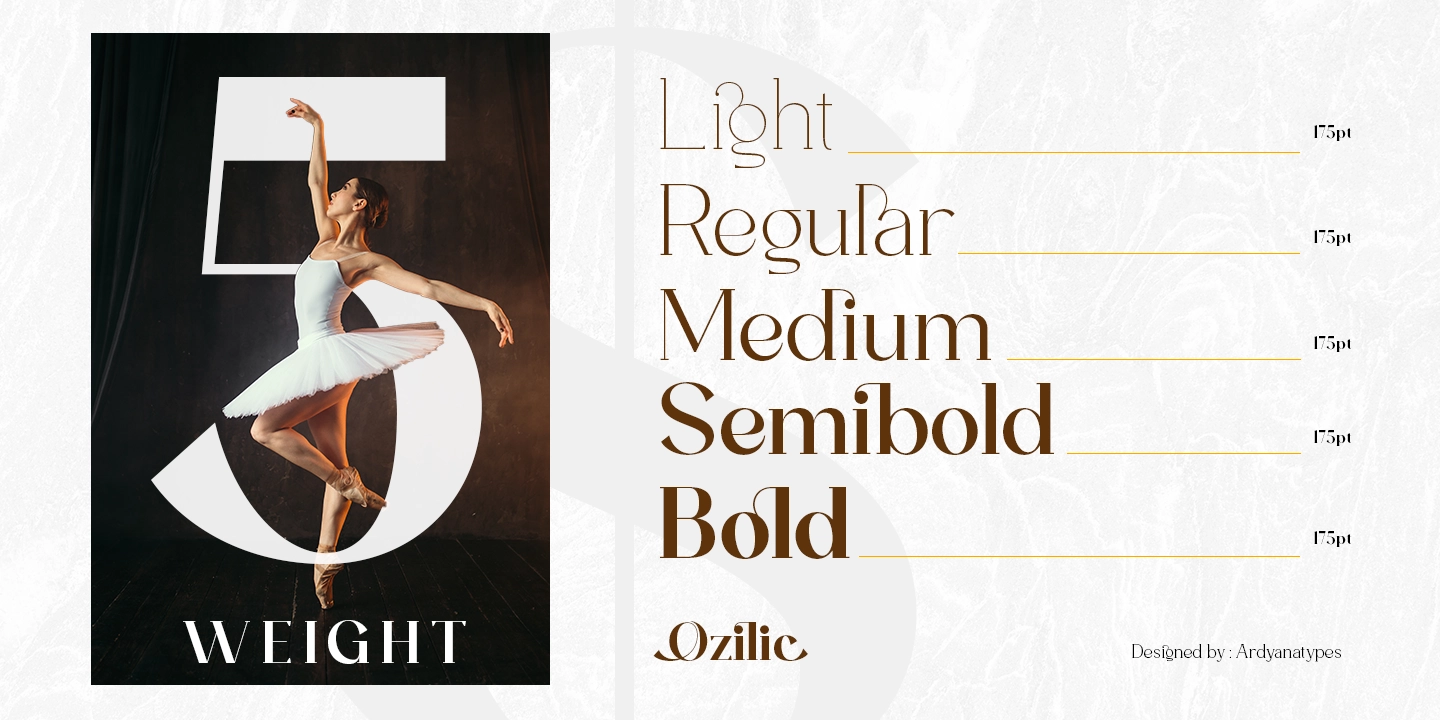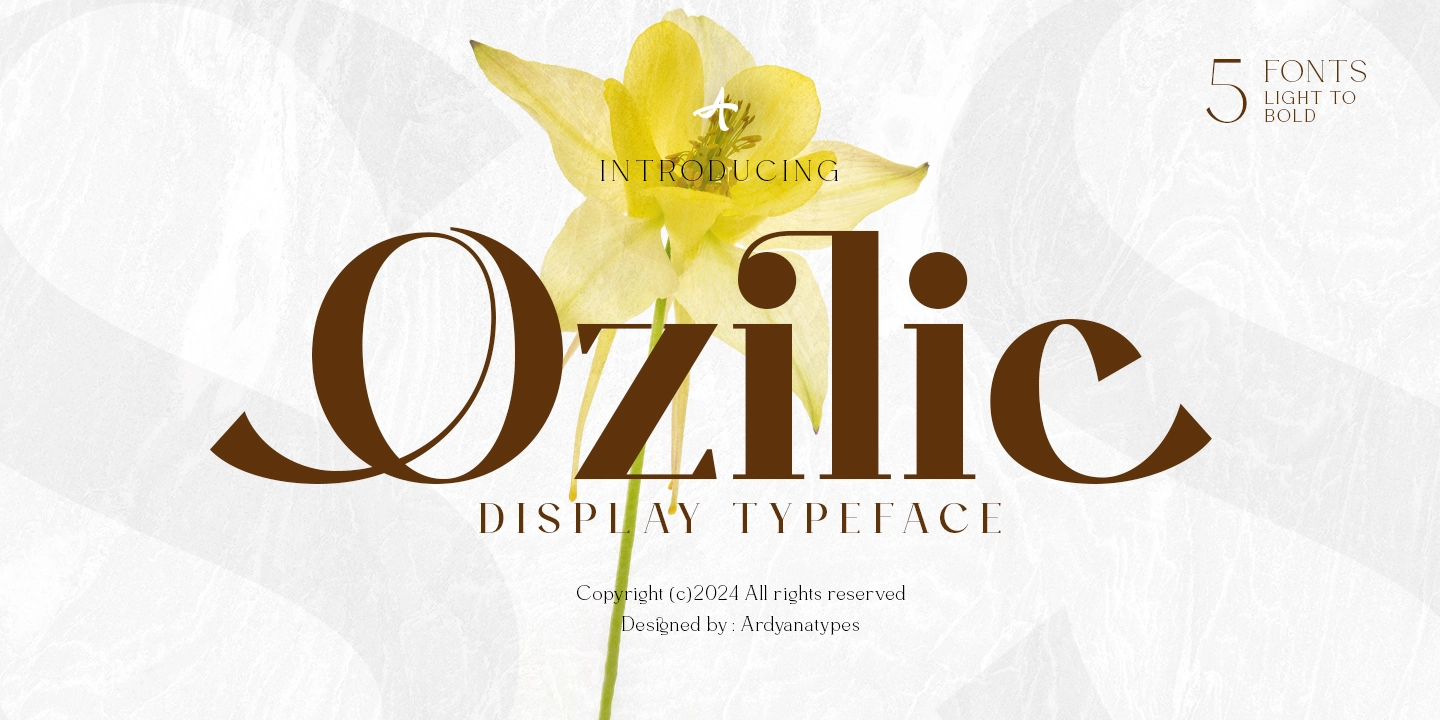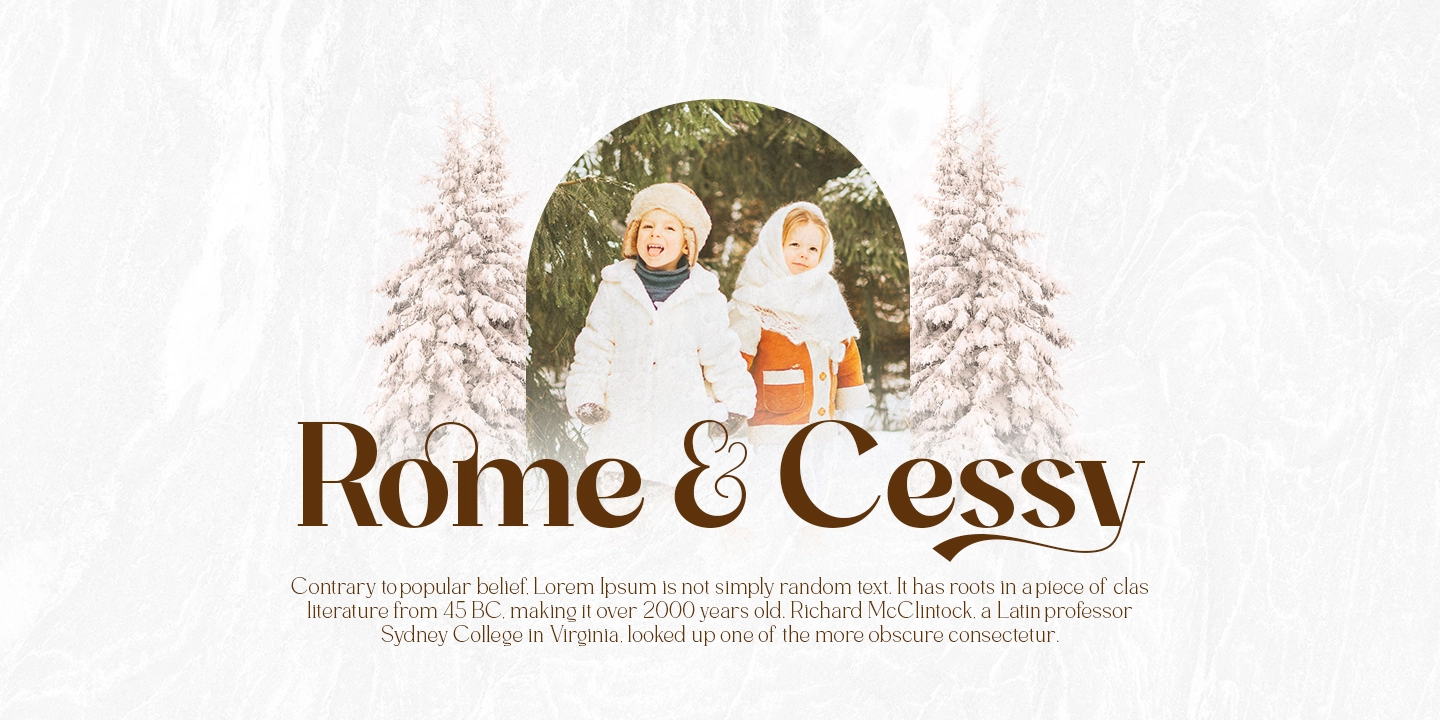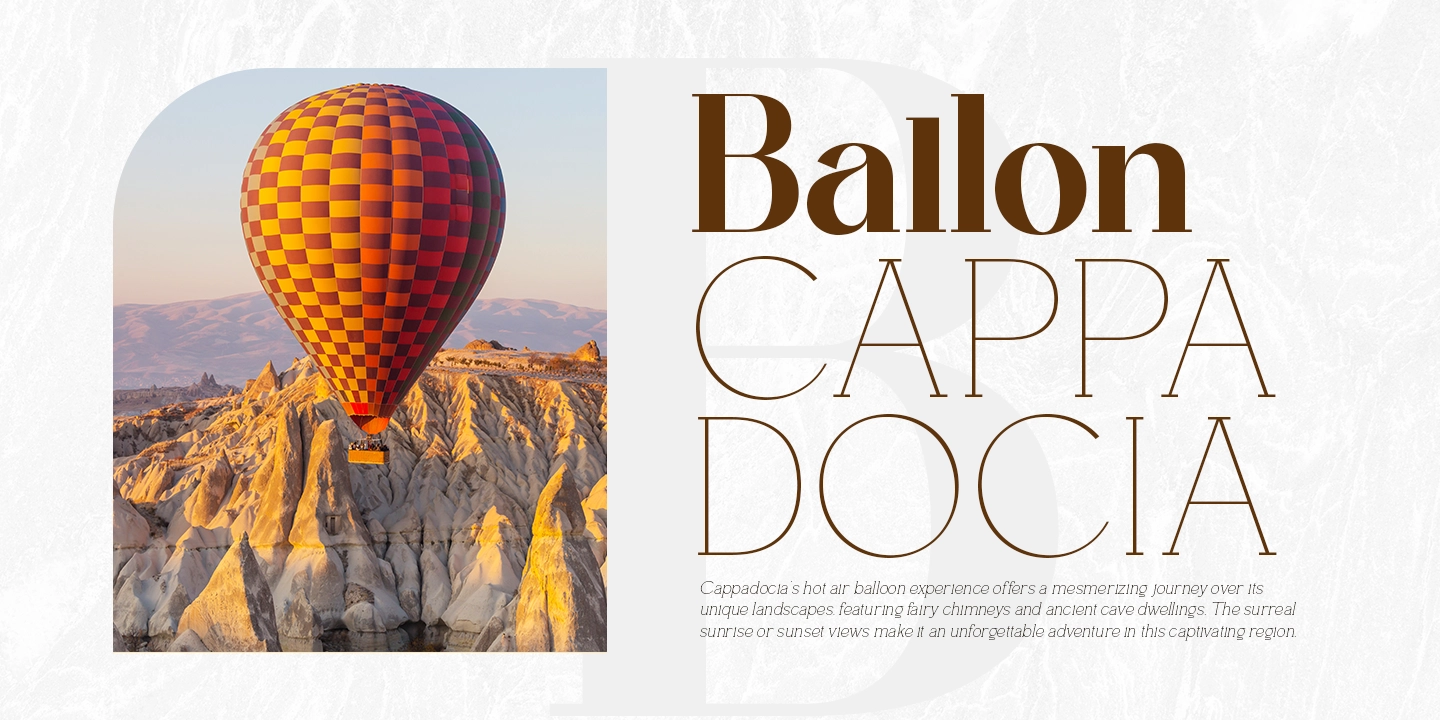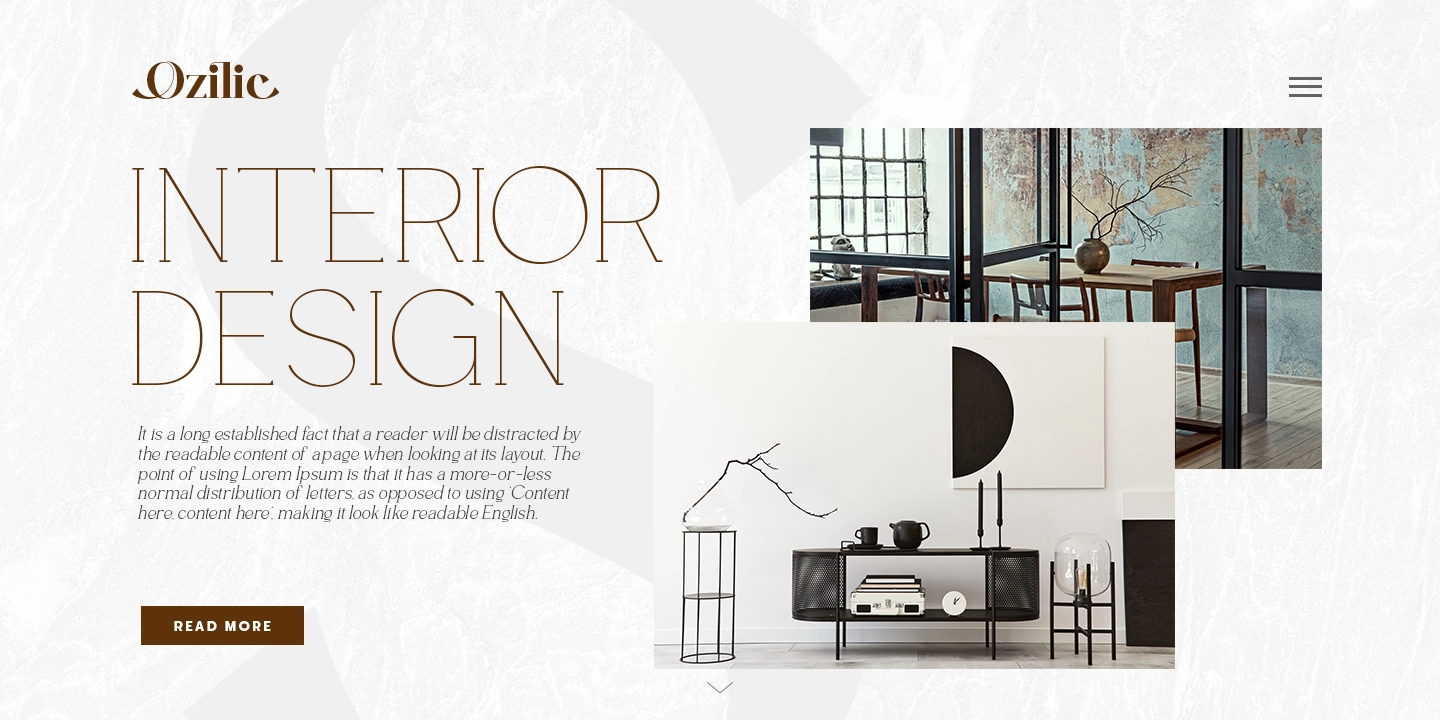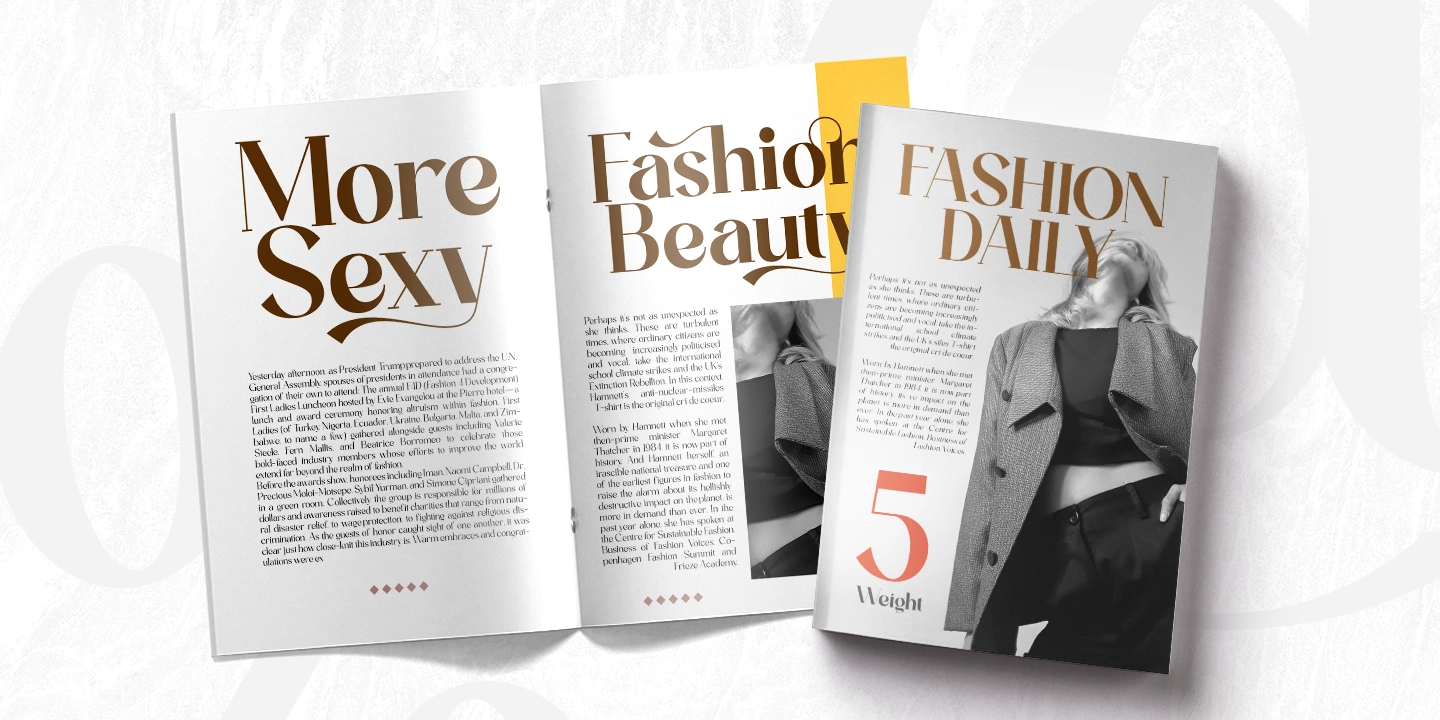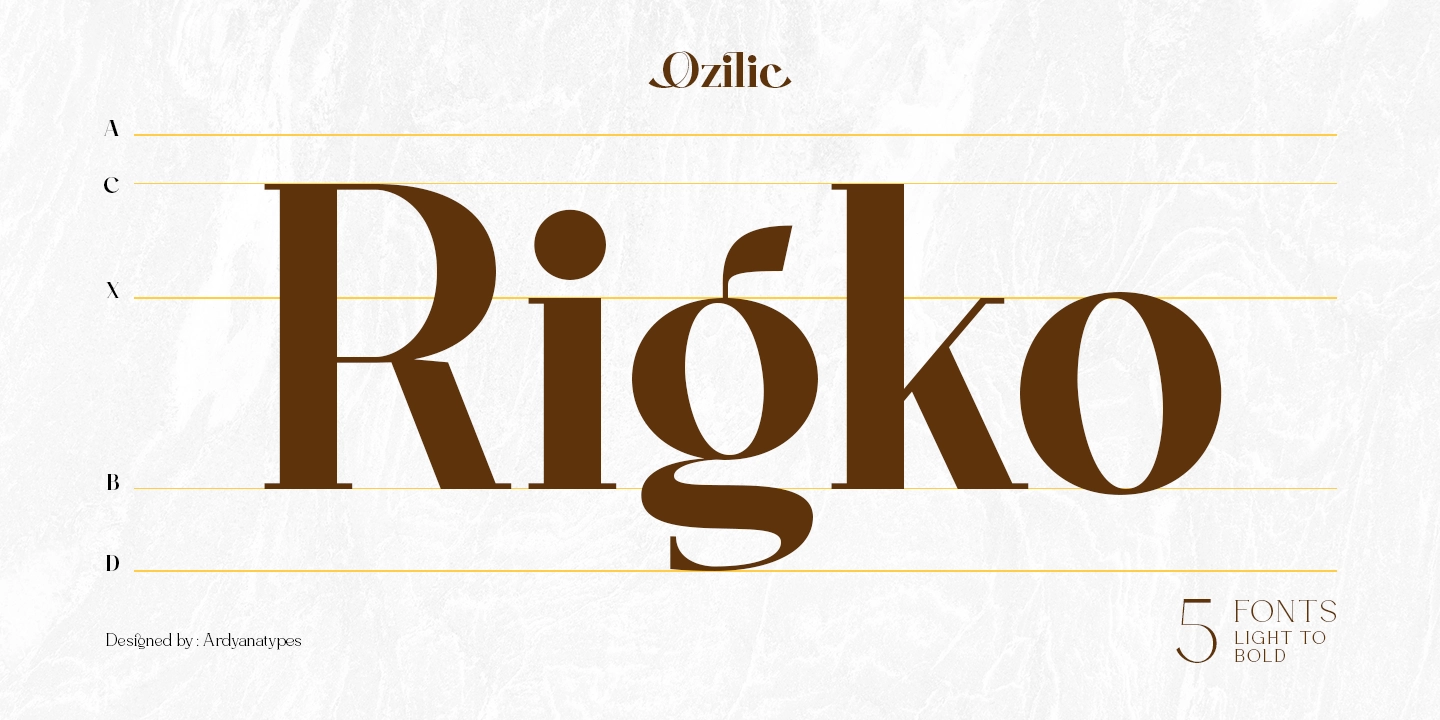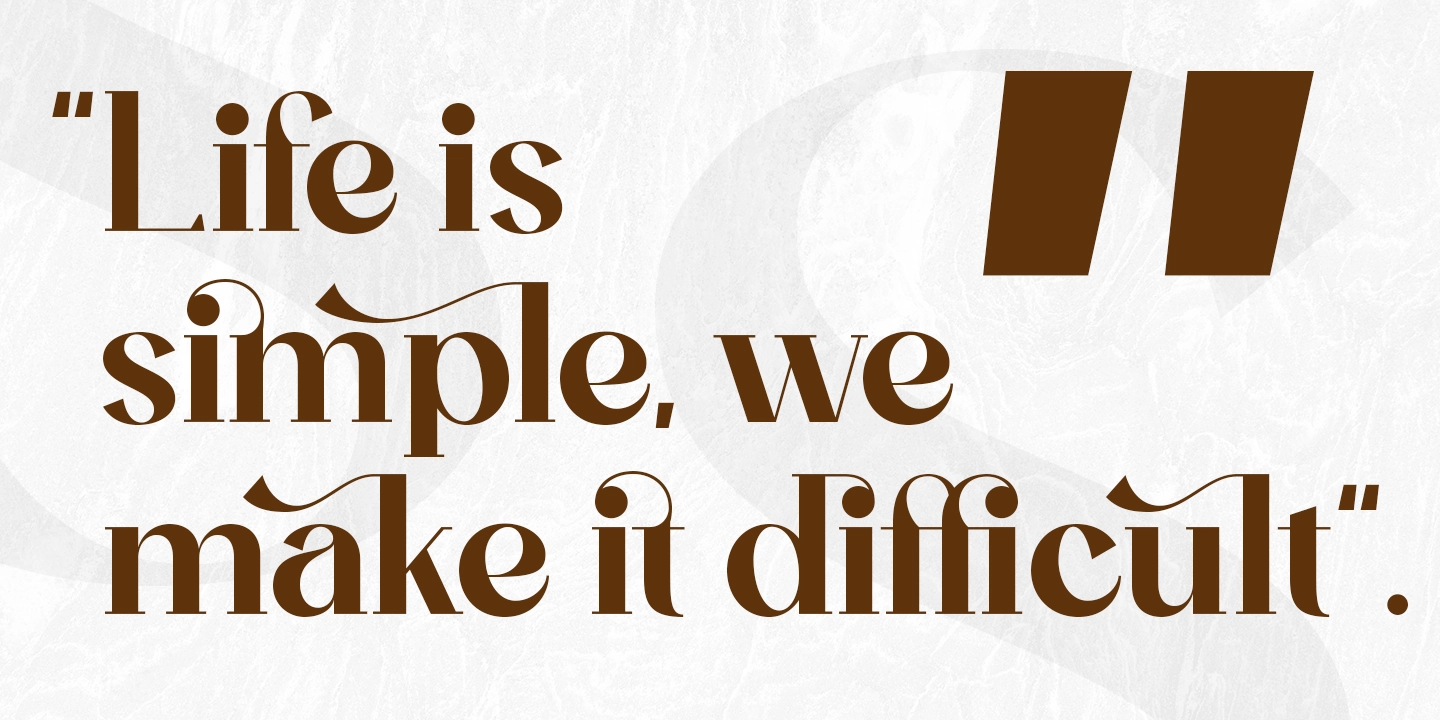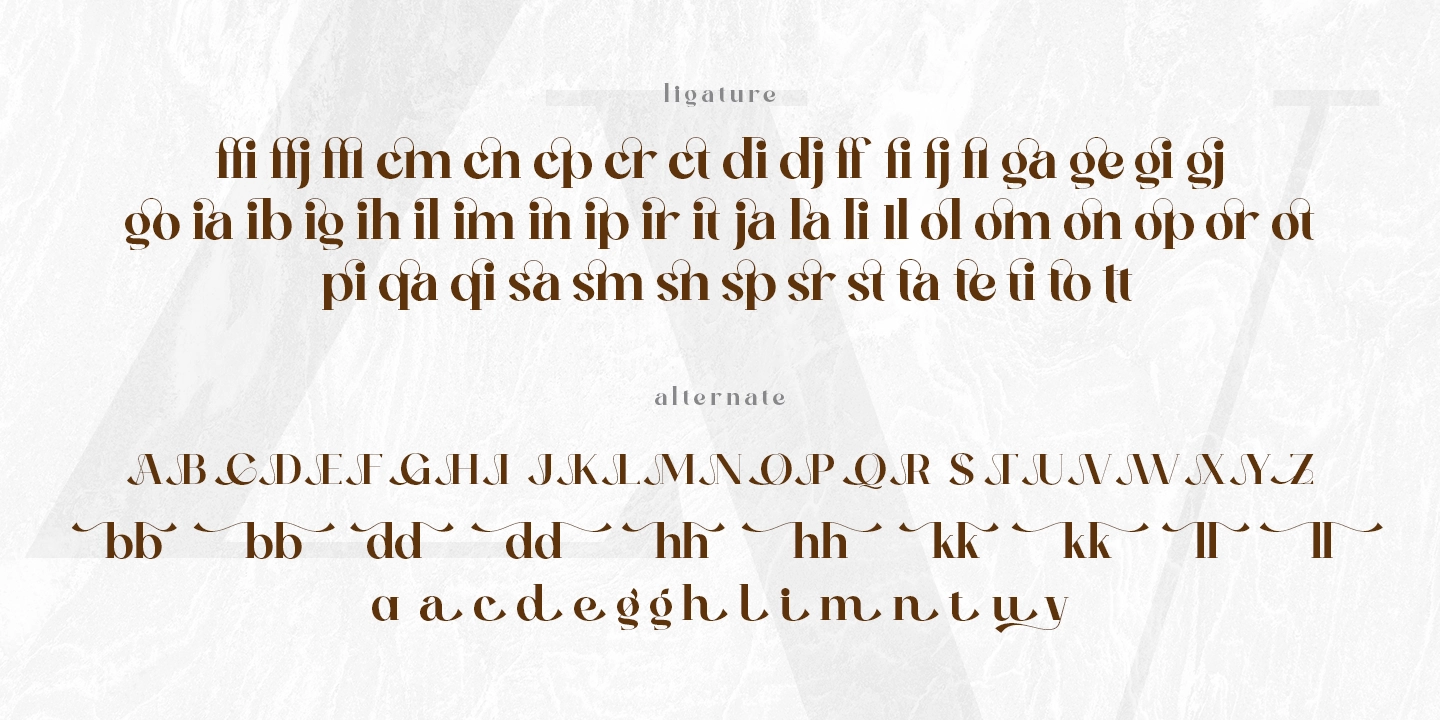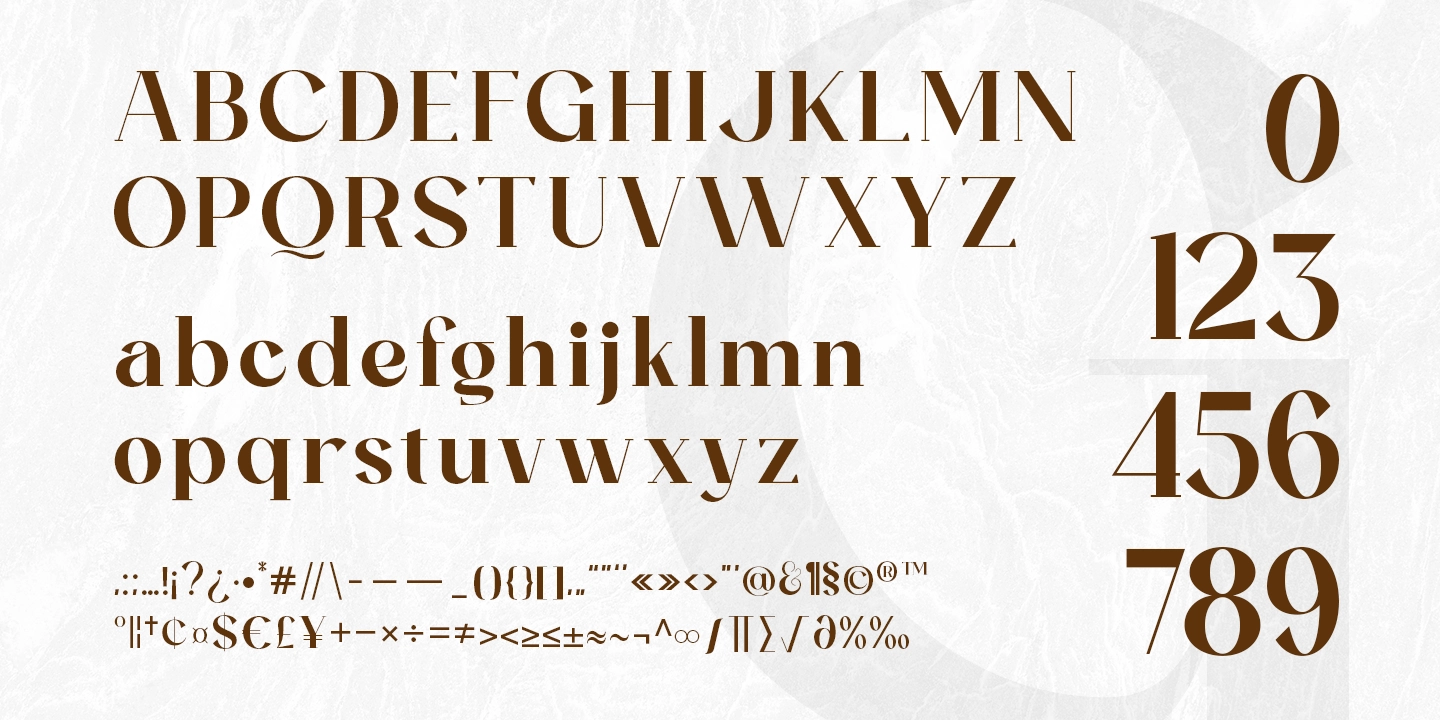
Ozilic
5 Styles
Ozilic is a meticulously crafted serif font designed to meet diverse creative needs. Inspired by contemporary font styles, it features comprehensive OpenType functionalities, offering ultimate flexibility for your design projects. Whether you’re working on posters, movie titles, books, branding media, or large-scale projects, Ozilic adapts effortlessly to any design style.
What sets Ozilic apart is its elegant design combined with extensive multilingual support, making it ideal for use across various countries and global markets. Elevate your designs with the professional and modern touch of Ozilic!
• ffi ffi
• ffj ffj
• ffl ffl
• cm cm
• cn cn
• cp cp
• cr cr
• di di
• dj dj
• fj fj
• fl fl
• ga ga
• ge ge
• gi gi
• gj gj
• go go
• ia ia
• ib ib
• ig ig
• ih ih
• il il
• im im
• in in
• ip ip
• ir ir
• it it
• ja ja
• la la
• li li
• ol ol
• om om
• on on
• op op
• or or
• ot ot
• pi pi
• qa qa
• qi qi
• sa sa
• sm sm
• sn sn
• sp sp
• sr sr
• ta ta
• te te
• ti ti
• to to